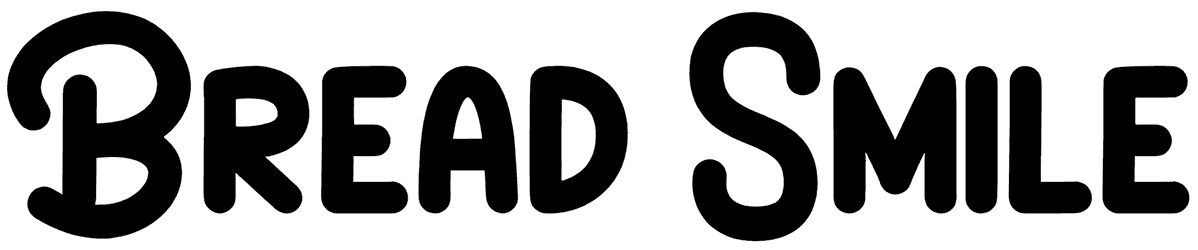
Bread Smile Font
If you are looking for an energetic font that is friendly at the same time, the Bread Smile font is to your liking. This font does not cover lowercase letters, which may be more beneficial for titles.
The form of letters, numbers, and symbols catches your attention at first sight, thanks to the smooth design of this playful font. The Bread Smile font kindly invites the viewer to follow your content and engage in your plan happily.
Designed by: Brithos Type